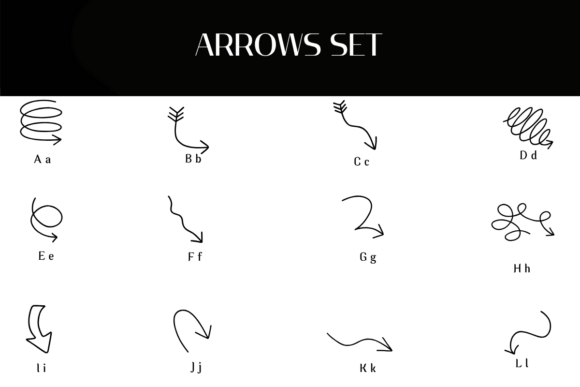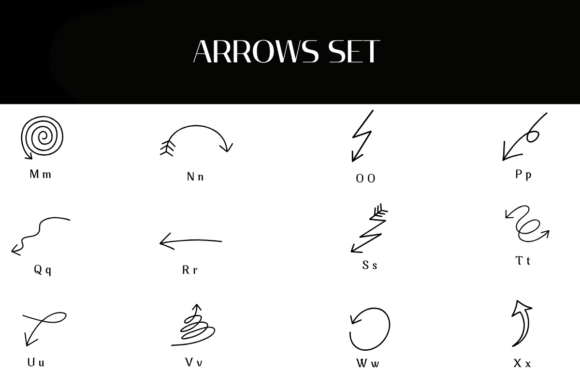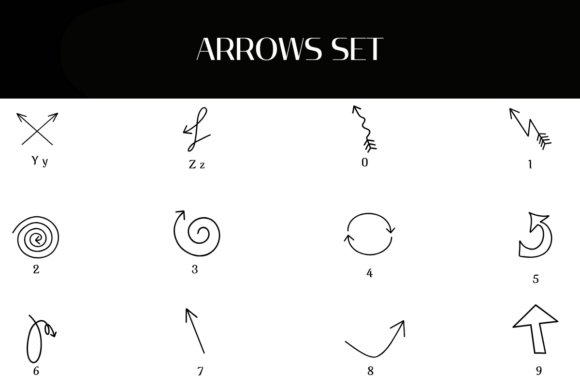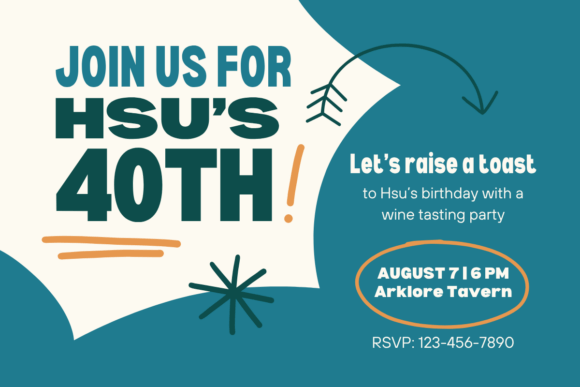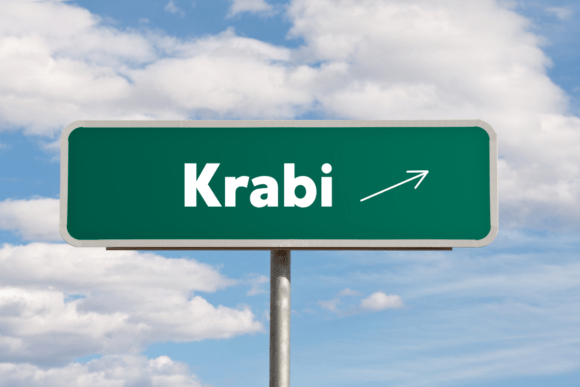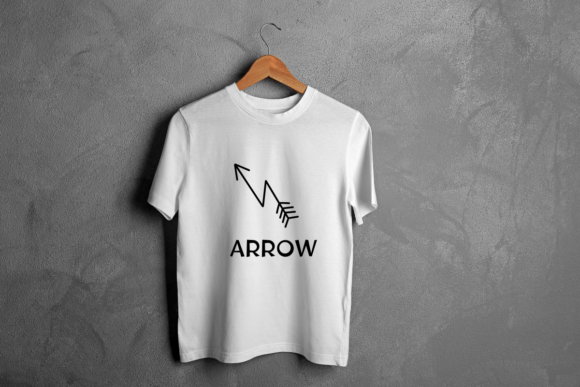
Unlock the Power of Dynamic Visuals with Arrows Set Font
Have you ever found yourself stuck in the middle of a creative project, desperately searching for the perfect visual element to bring it all together? You’re not alone. We’ve all been there – staring at a blank page, desperate for that one thing that will make our design pop. For designers, crafters, and anyone looking to add a touch of whimsy to their work, the solution lies in the Arrows Set Font – a specialized dingbats font packed with an impressive array of hand-drawn arrows and motion graphics.
This charming font is more than just a pretty face; it’s a powerful toolkit designed to help you add spontaneous visual emphasis to any project. With its unique glyphs and expressive sketch style, the Arrows Set Font is the perfect addition to social media graphics, educational worksheets, scrapbooking, and playful presentations.
Key Features of Arrows Set Font
- Font Styles: Arrows Set Font offers a wide range of arrow-based font styles, including bold, italic, and regular styles, making it suitable for various design applications.
- Character Set: The font includes a comprehensive set of characters, including uppercase and lowercase letters, numbers, and punctuation marks, as well as a range of arrow symbols.
- Size and Resolution: The font is available in a range of sizes, from 12 to 72 points, and is designed to be scalable to any resolution, making it suitable for use in both print and digital applications.
- Unique Characteristics: The font’s unique arrow-based design elements make it stand out from other fonts, adding a touch of creativity and visual interest to any design project.
- Multi-Lingual Support: The font supports a range of languages, including English, Spanish, French, German, Italian, and many others, making it a versatile choice for designers working on international projects.
Arrows Set Font Review
Overall, I think Arrows Set Font is a solid choice for designers looking to add a modern and edgy touch to their projects. Here are some of its strengths: ✨
- Unique and eye-catching arrow icons that can be used to create visually appealing graphics and illustrations.
- Highly customizable, with options to change the color, size, and orientation of the arrows.
- Works well in a variety of contexts, from digital design to print materials.
However, I do have some concerns about its limitations: ⚠️
- The font may not be suitable for projects that require a more conservative or traditional look.
- The arrow icons may be difficult to read in very small sizes or low-resolution contexts.
- The font lacks a bold or italic version, which may limit its use in certain situations.
Overall, I’d say that Arrows Set Font is a great choice for designers who want to add some visual interest to their projects. While it may not be the best fit for every project, it’s definitely worth considering for those looking to add a modern and edgy touch.
Arrows Set Font is ideal for creating attention-grabbing headings and titles in Canva.
Arrows Set Font can add a creative touch to your designs in Adobe Photoshop/Illustrator.
Arrows Set Font can help you create visually appealing presentations and documents in PowerPoint/Word.
Arrows Set Font is ideal for:
- Creating attention-grabbing headings and titles.
- Adding a creative touch to designs.
- Highlighting important information.
Remember to experiment with different arrow font styles and sizes to get the most out of Arrows Set Font.